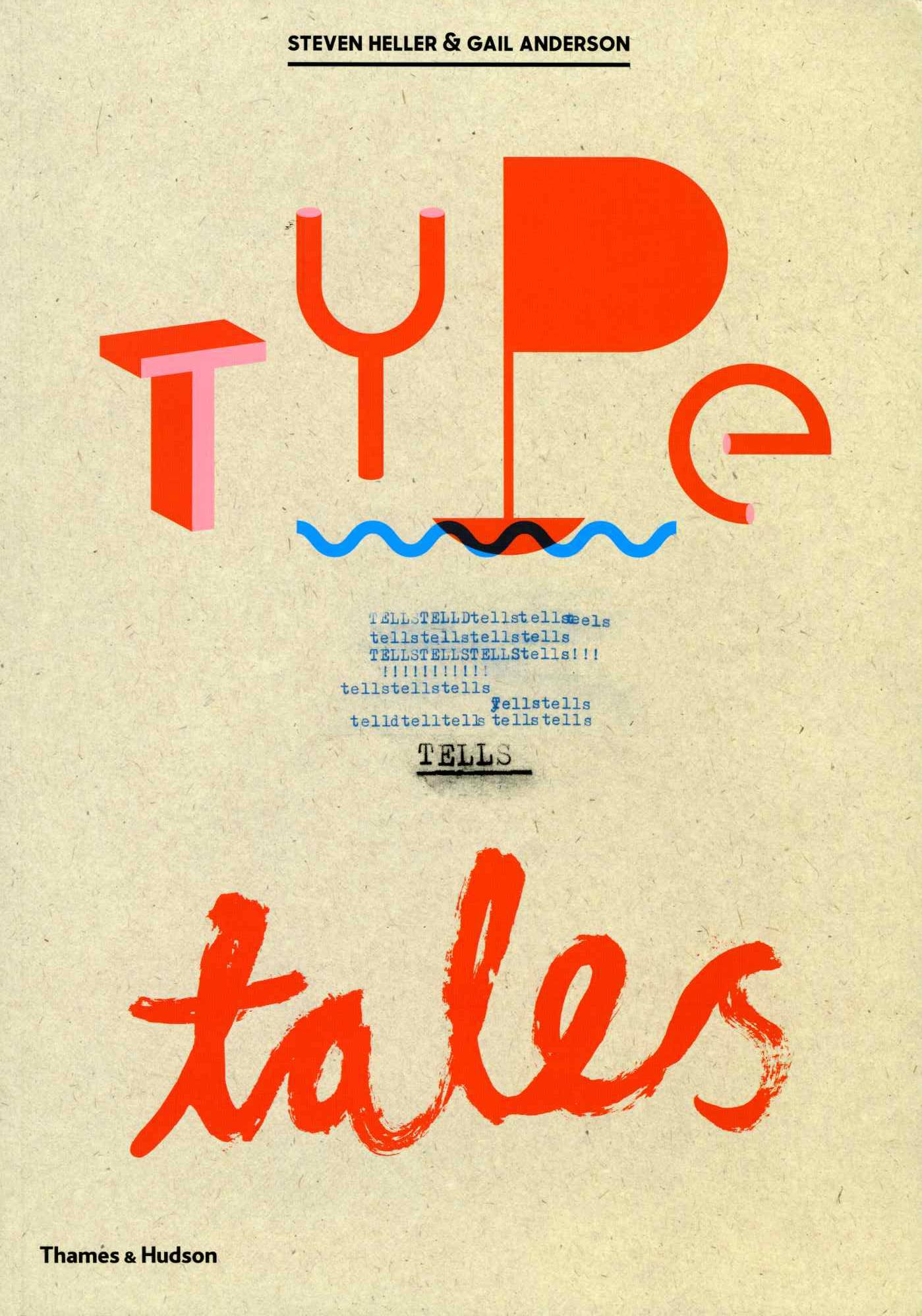
Type Tells Tales
An exciting, fresh take on typography which goes far beyond the letter and word, exploding the boundaries of typographic expression
Type Tells Tales focuses on typography that is integral to the message or story it is expressing. This is type that speaks – that is literally the voice of the narrator. And the narrator is the typographer. This can be quite literal, for example when letters come from the mouth of a person or thing, as in a comics balloon. It can be hand lettering, drawn with its own distinctive peculiarities that convey personality and mood. Precedents for contemporary work might be in Apollinaire’s calligram ‘Il pleut’ or Kurt Schwitters’ children’s picture book The Scarecrow, or in Concrete Poetry, Futurist ‘Words in Freedom’ or Dadaist collage.
Seeking out examples in the furthest reaches of graphic design, Steven Heller and Gail Anderson uncover work that reveals how type can be used to render a particular voice or multiple conversations, how letters can be used in various shapes and sizes to create a kind of typographic pantomime, and how type can become both content and illustration as in, for example Paul Rand’s ‘ROARRRRR’. Letters take the shape and form of other things, such as people, faces, animals, cars or planes. There are examples of how typographic blocks, paragraphs, sentences and blurbs can be used to guide the eye through dense information.
Introduction - 1. POETICS: Filippo Tommaso Marinetti • Hendrik Nicolaas Werkman • John Cage • Walasse Ting • Barrie Tullett • Antonius Bui • Dylan McDonough • Dirk Hagner • Agrafka Studio • Allen Crawford • Bianca Bunsas • Herman Inclusus • Pedro Antônio Gabriel Anhorn • Warren Lehrer - 2. DRAMATICS: Francis Picabia • Leo Lionni • Robert Massin • Warren Lehrer • Maira Kalman • Molly Leach • Stuart Sharpe • Jonny Hannah • Tom Hingston • Peter Blegvad and Andrew Swainson • Patrick King - 3. MANIFESTO: Paula Scher • Paulo Soleri • Johanna Drucker • Richard Eckersley • Sawdust • John Hendrix • Isabel Seiffert • Lora Fosberg • Laurie Rosenwald • John Passafiume • Nick Reeve • Natali Cohen • NOT A BENE Visual (NBv) • Annie Vought • Jack Summerford • Oliver Munday • Carolyn Sewell - 4. MONUMENTAL: Alida Sayer • Ariane Spanier Design • Brian Rea • Daniel Patrick Helmstetter • Lust • Timothy Goodman • Rogers Eckersley Design (RED) - 5. CLASSICS: Kiril Zlatkov • Sam Winston • Damián Sena • Hermes Mazali • Pilar González Bergez- 6. TYPOPLAY: Fortunato Depero • Corita Kent • Marian Bantjes • Philippa Wood • Cyla Costa • Church of Type • Wael Morcos • Ebon Heath • Angie Butler and Philippa Wood • Chank Diesel and Anne Ulku • Brian Scott Bagdonas • Jamie Clarke • Jason Permenter - 7. ALPHABETICS: Bruno Munari • Roberto de Vicq de Cumptich • Ross MacDonald • Milton and Shirley Glaser • Werner Design Werks - Designers & website list